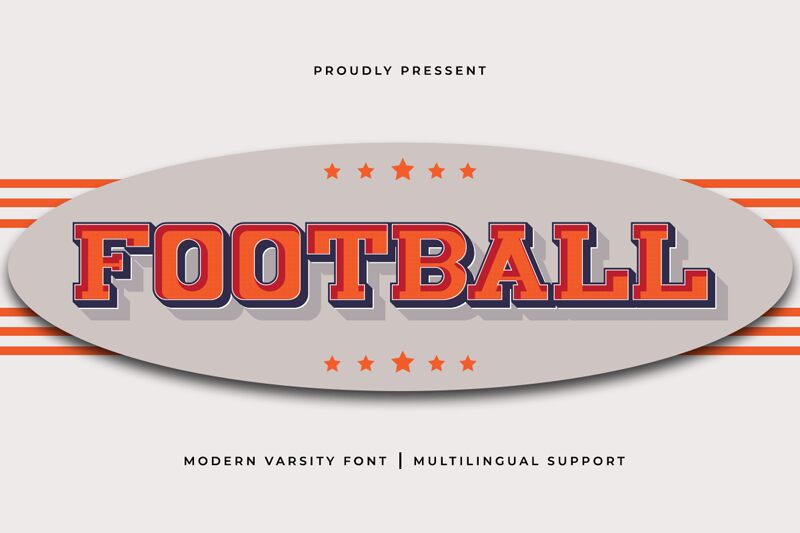
Football font from Kong Font is a bold serif typeface built with a vintage and collegiate feel. All letters in this font are blocky with an authoritative appearance and particularly attention demanding presence. Words written in this font easily capture readers’ attention as each individual letter is given significant visual weight.
This free font will make the perfect addition to sport-related projects designed for colleges or clubs. It’s ideal for use on posters, banners, digital media, websites, social media platforms, videos, and all other branding purposes that need to be overridden by a bold typeface. Football can also complement your typographic logos and packaging designs.